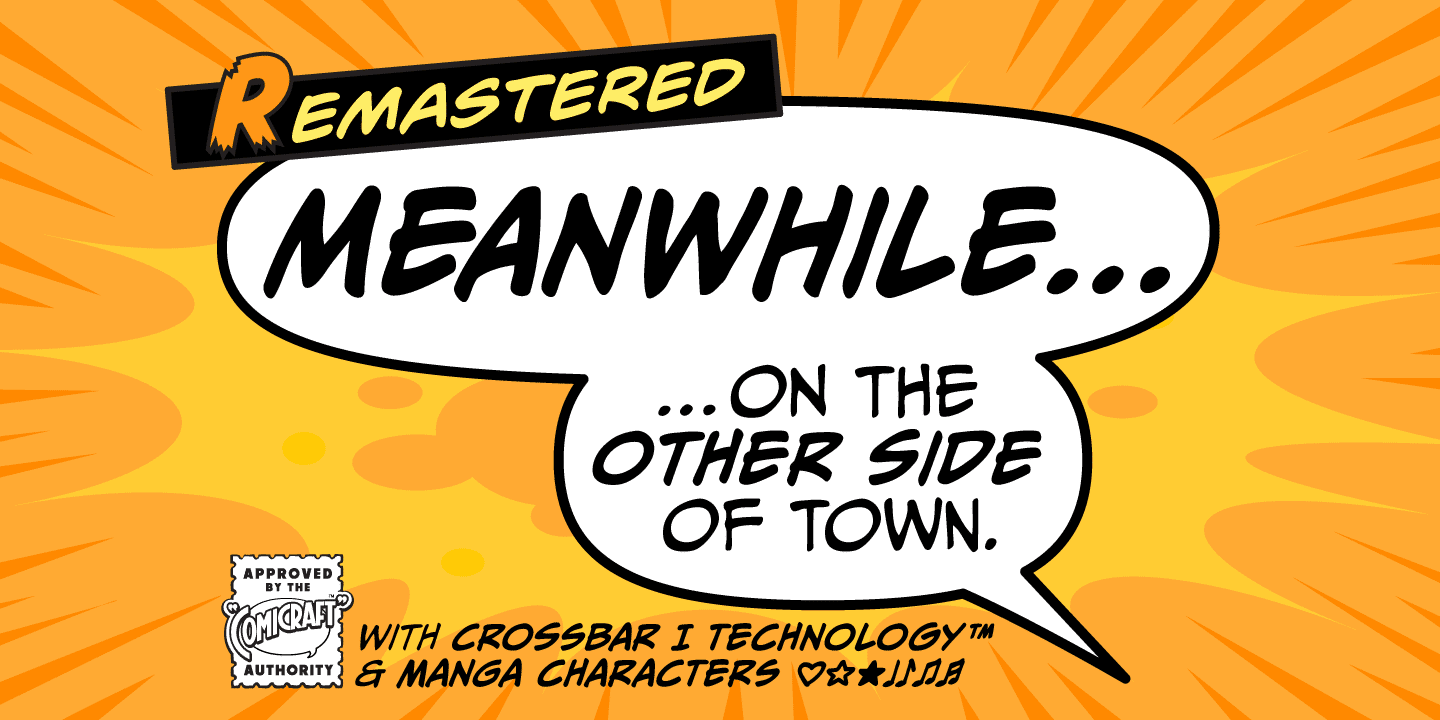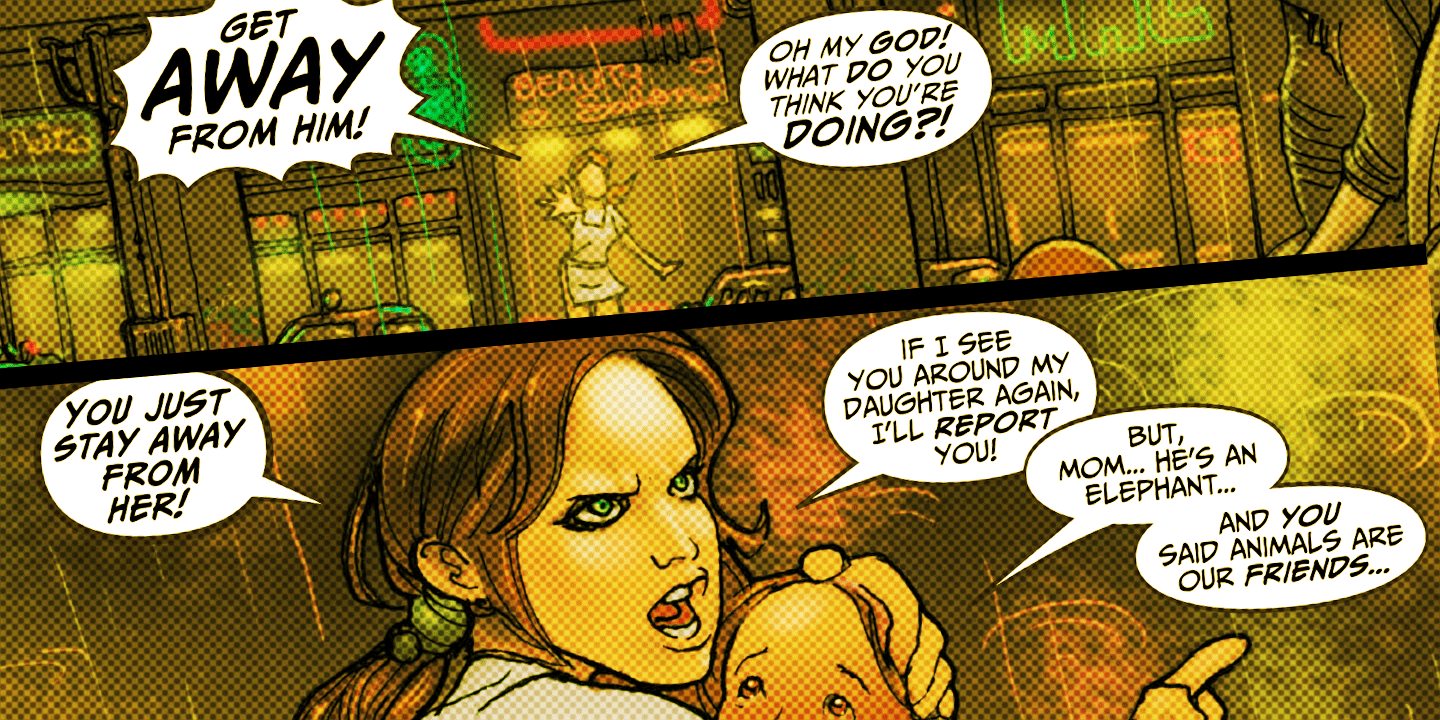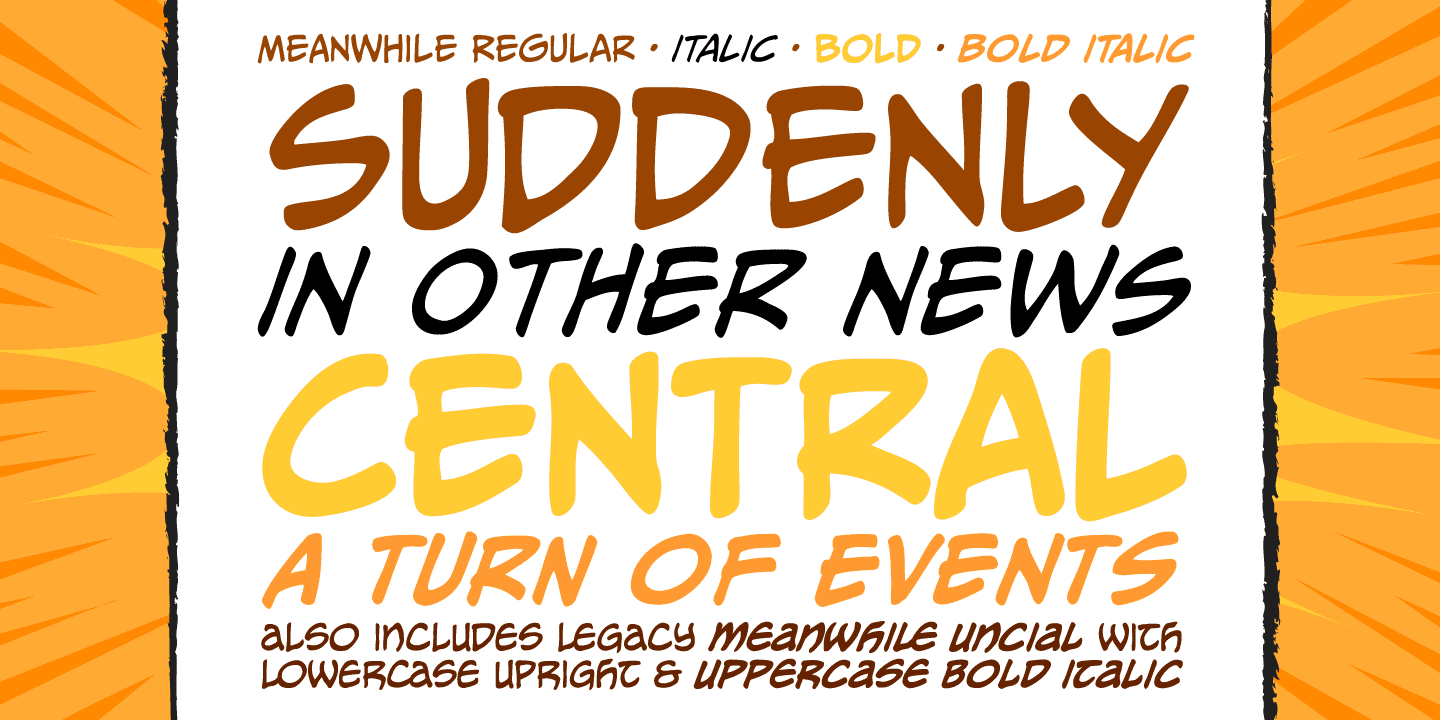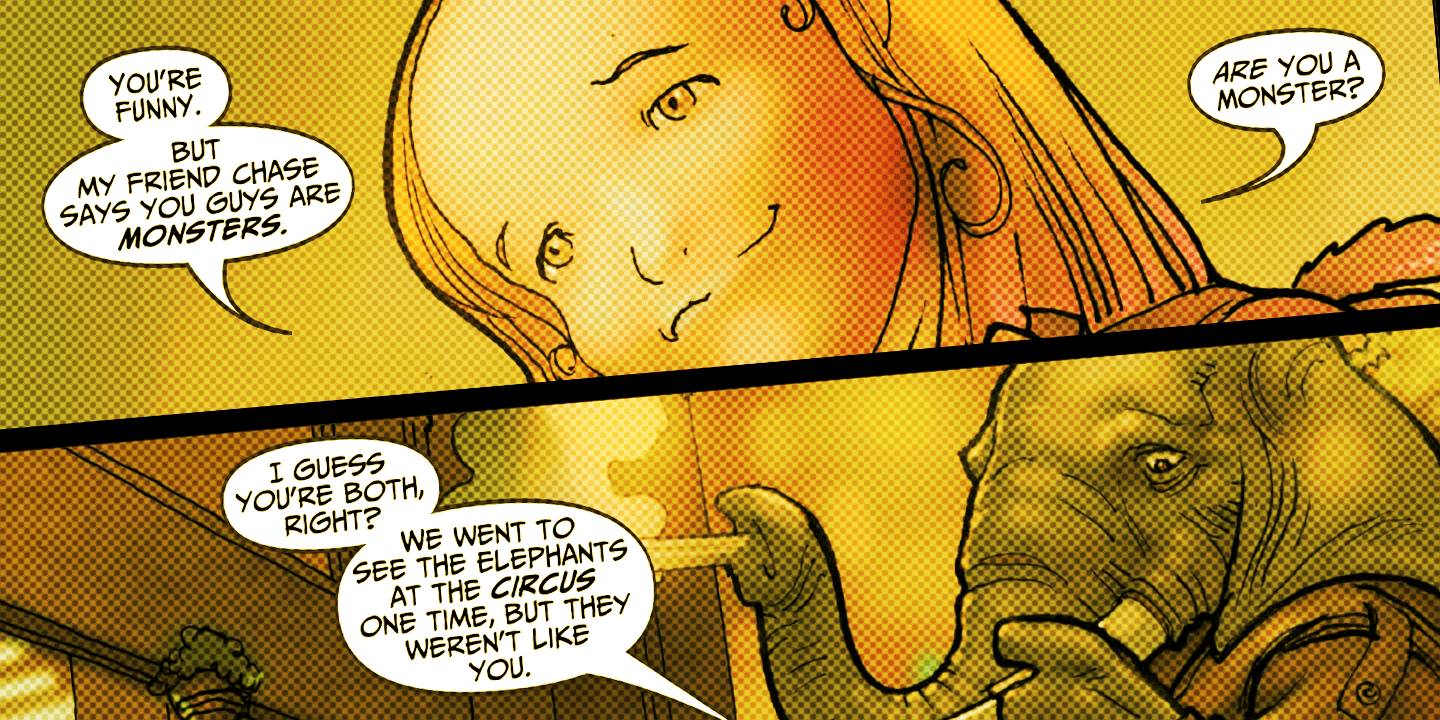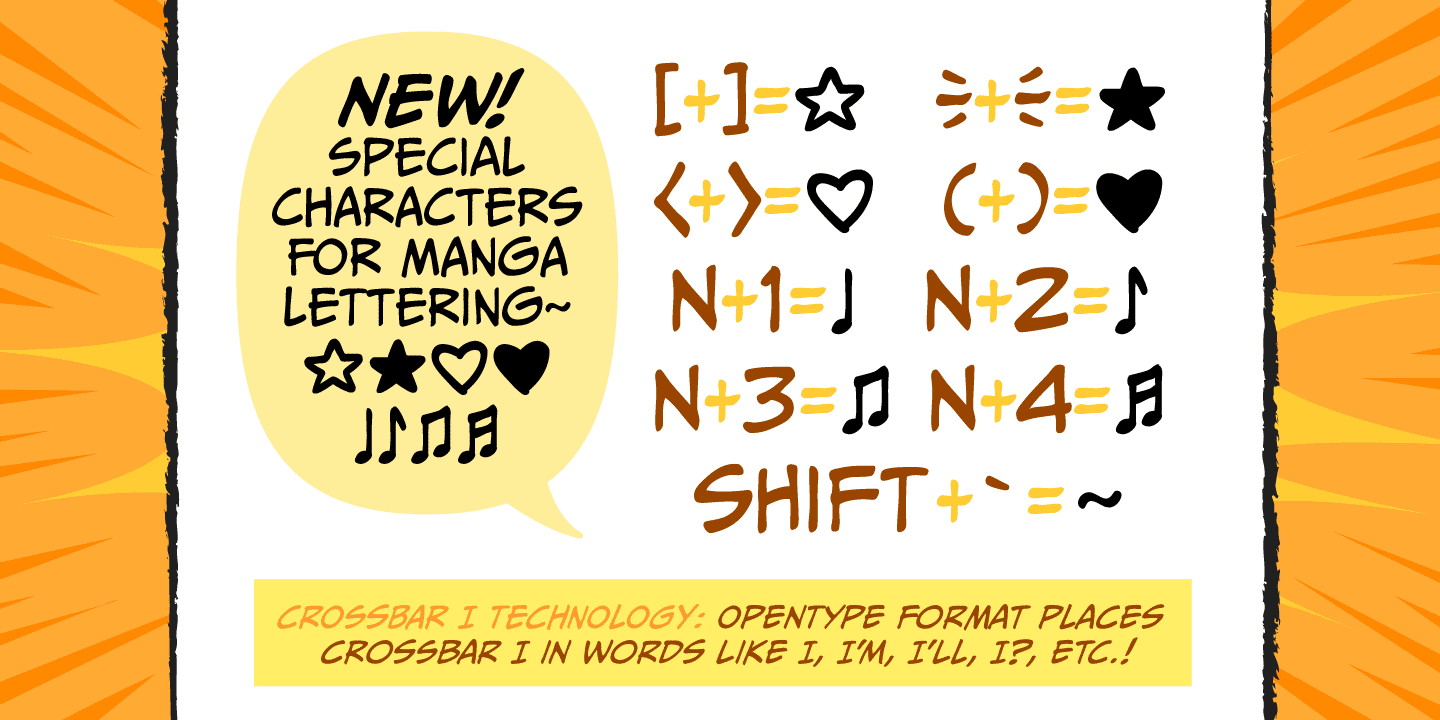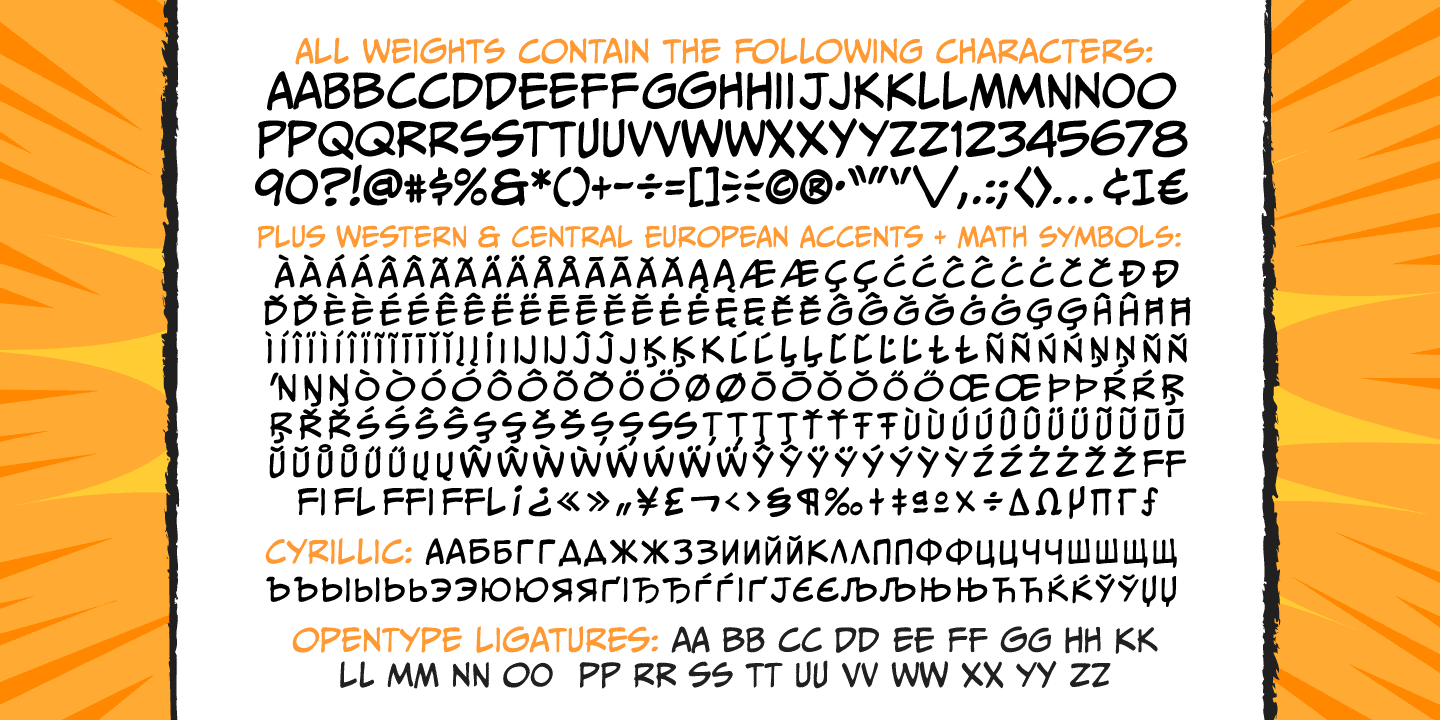
Meanwhile
Font Family by Comicraft Fonts
Buy NowSuddenly --’ just isn’t ’Soon...’ enough for some people, and ’Later...’ isn’t quite ’The Next Day...’ ’Meanwhile...’ lies in between ’Seconds pass...’ and ’That Night...’ and was designed by Comicraft’s John ’With Just a few minutes to Go...’ Roshell to tell the tales of Marvel’s AVENGERS and FANTASTIC FOUR. ’And now, back to the action…